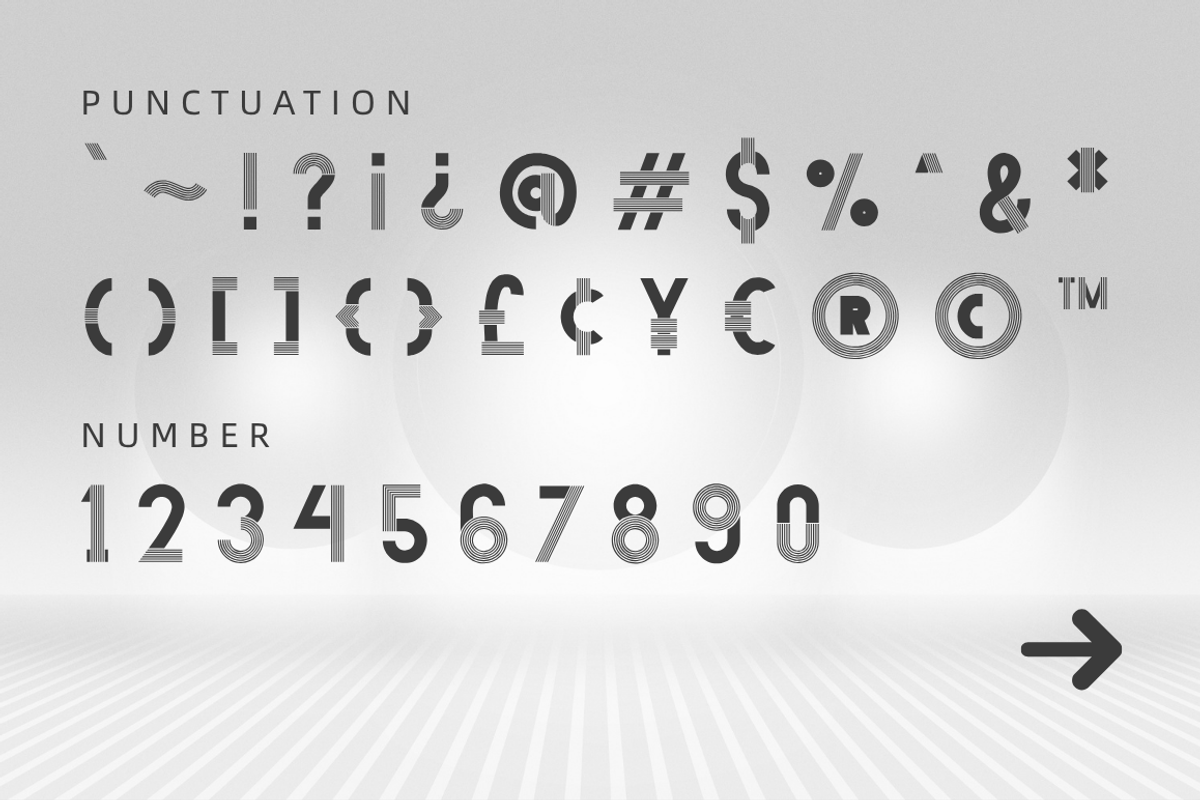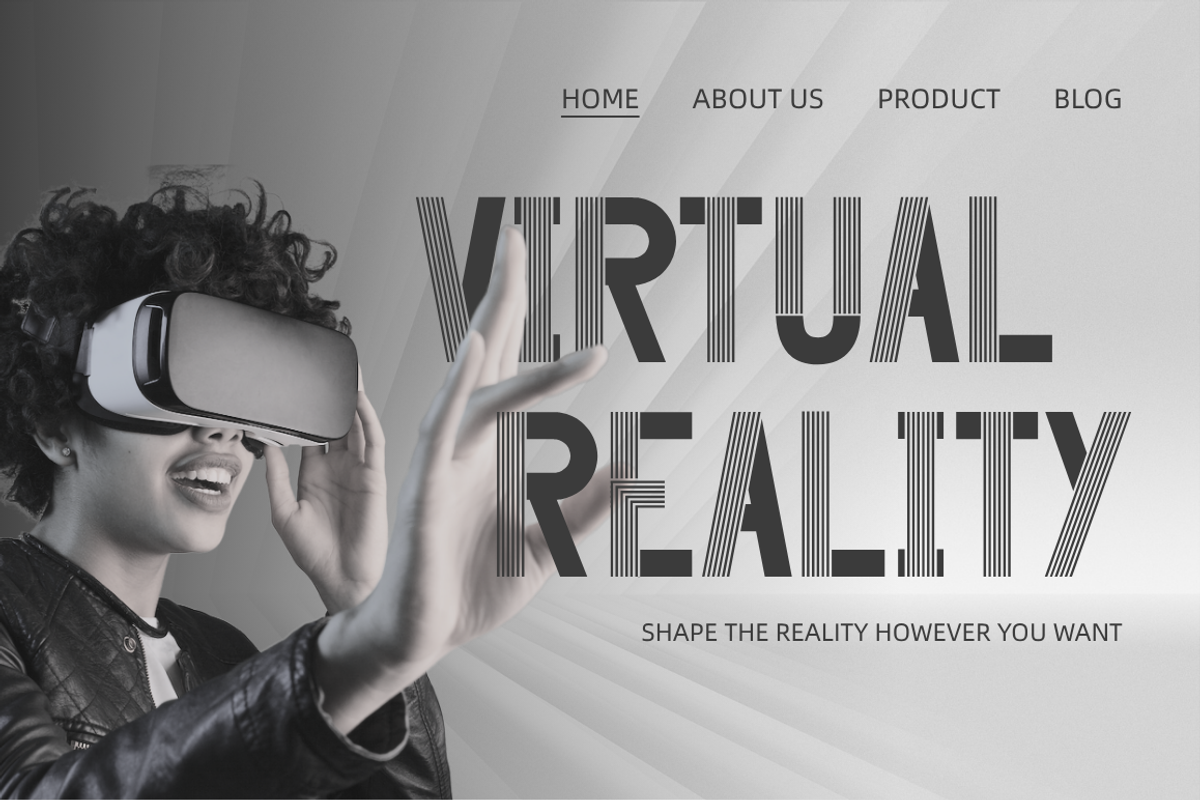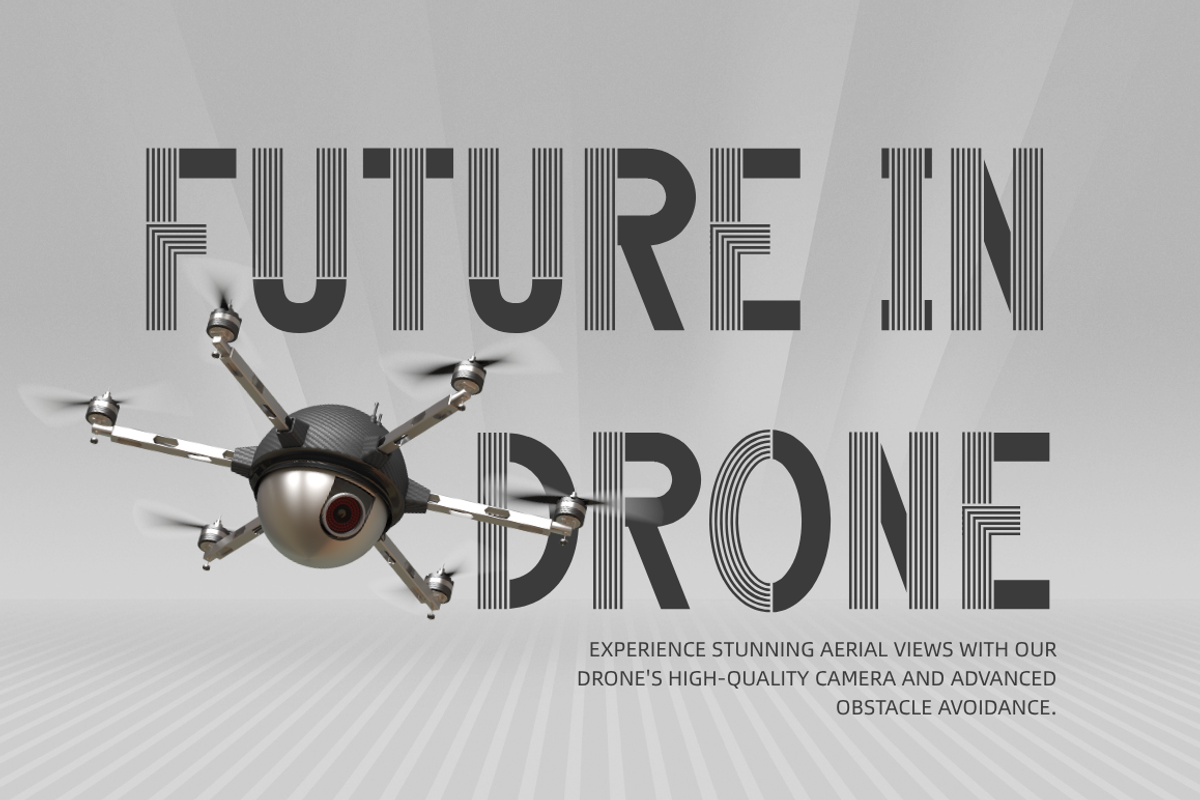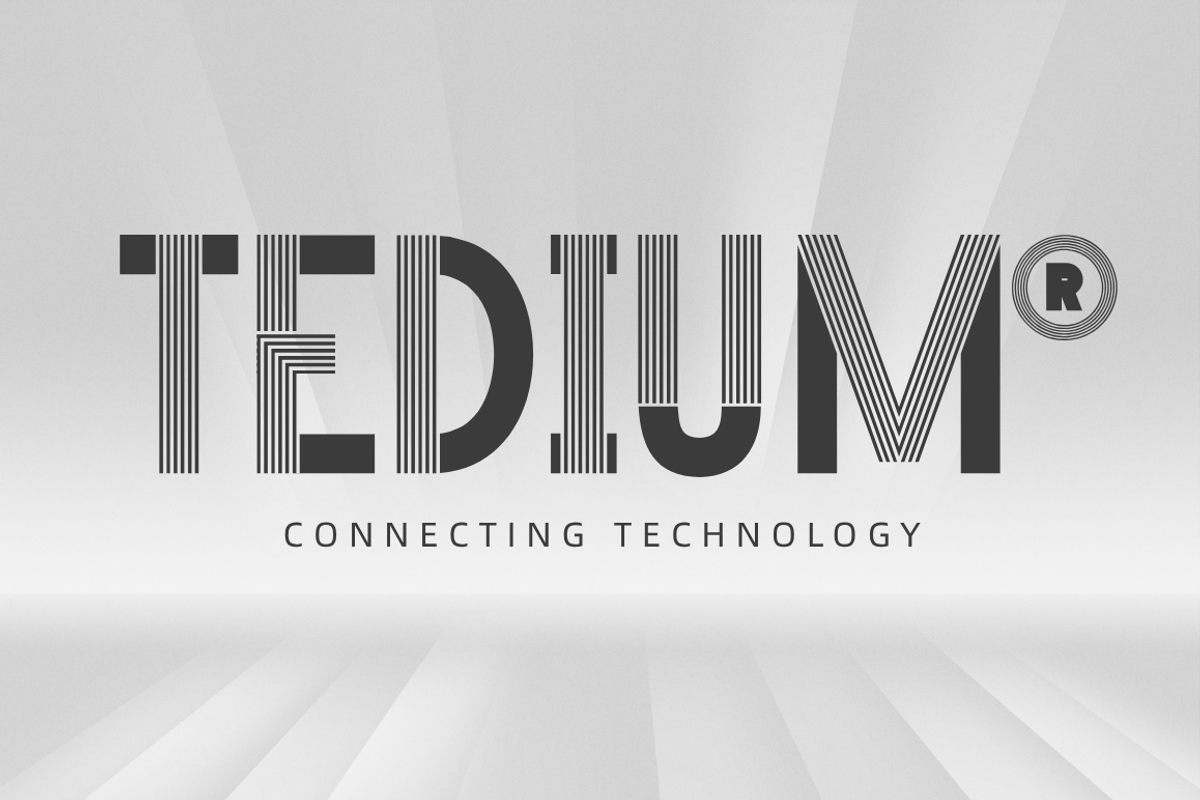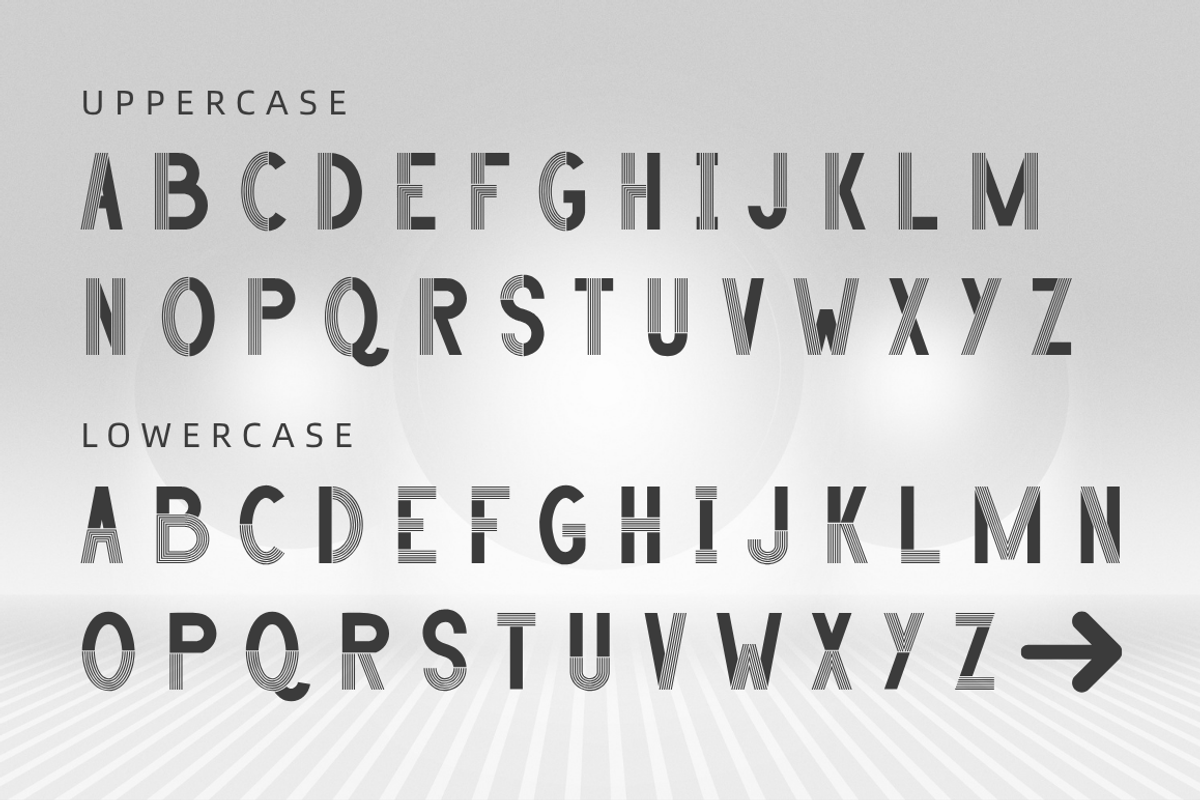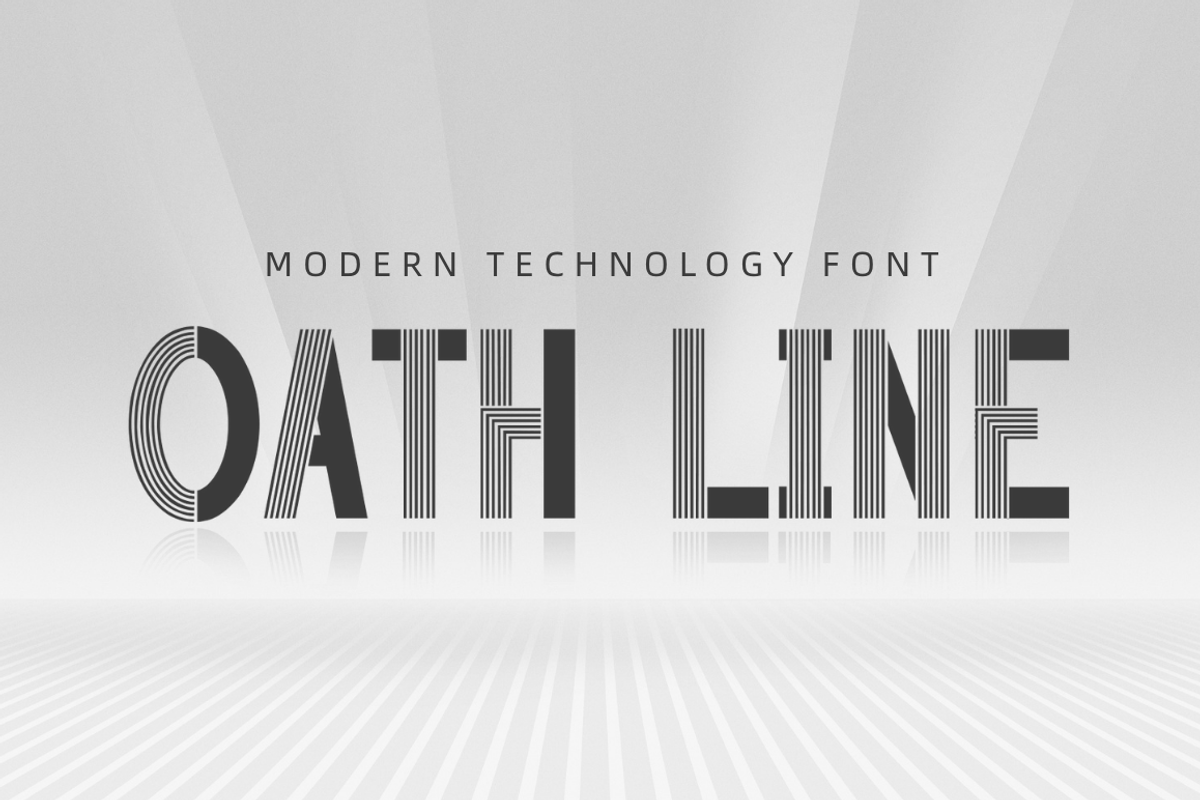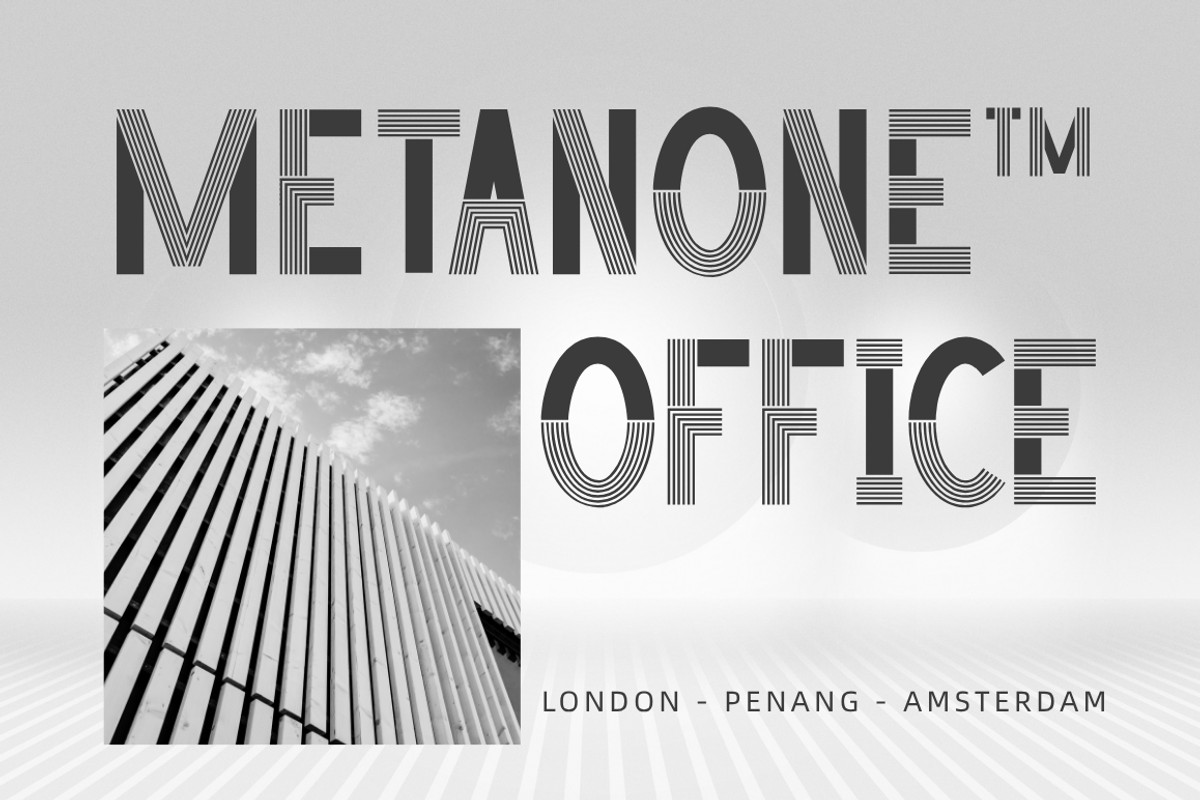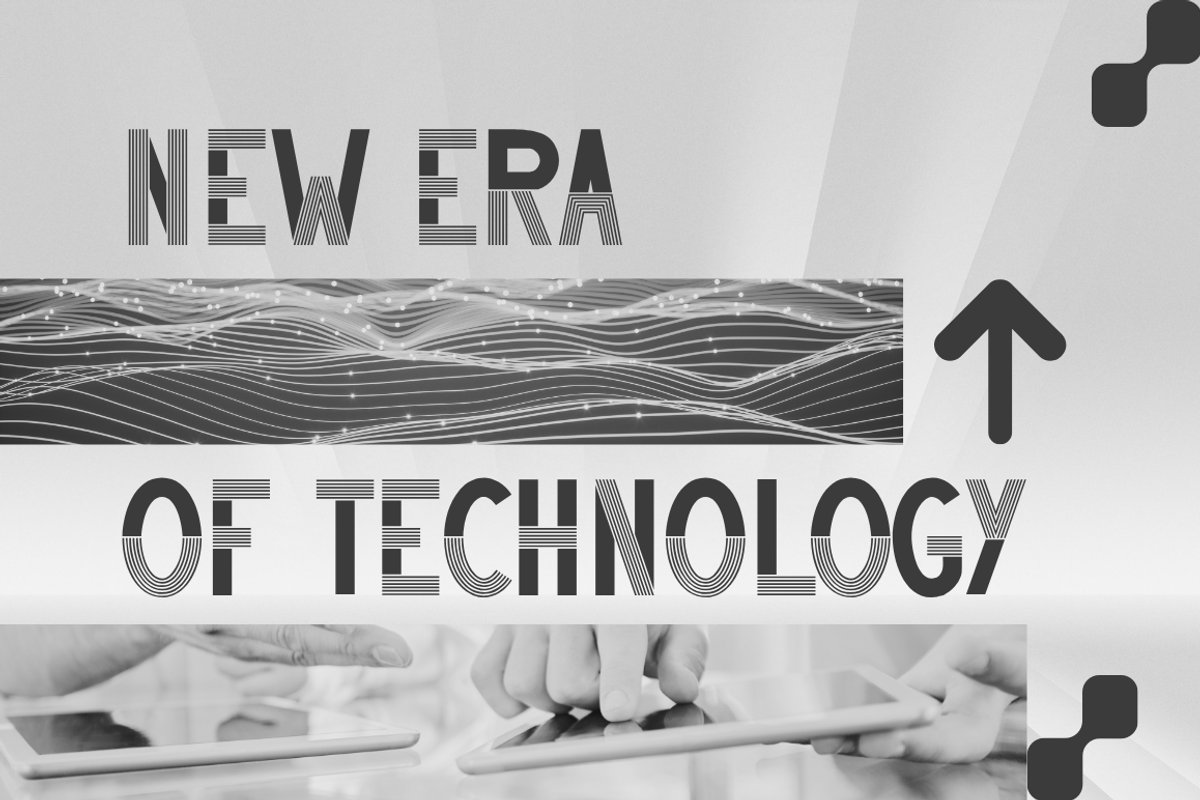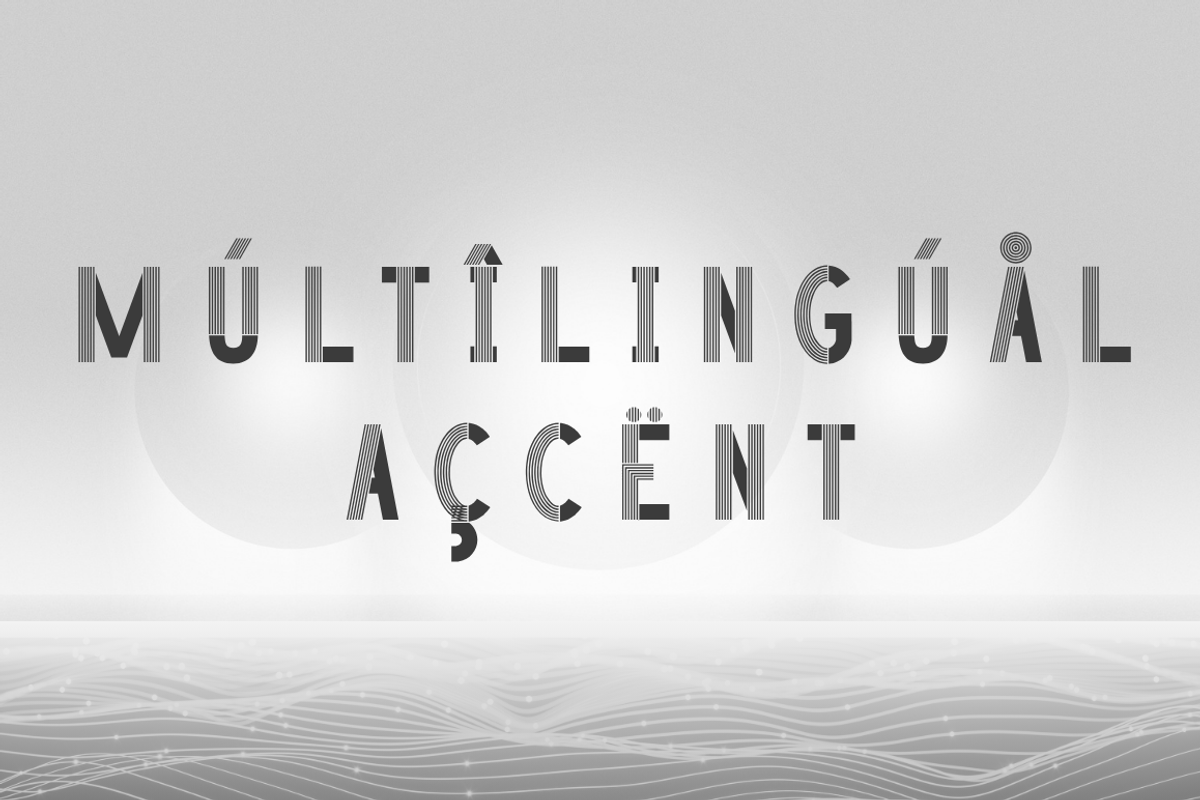
Oath Line – Modern Technology Font
Oath Line – Modern Technology Font is a futuristic display font designed to stand out with its dynamic combination of bold solid lines and sleek linear details. Perfectly crafted for high-impact designs, this font brings a modern tech aesthetic ideal for digital interfaces, innovation campaigns, and science-themed projects.
Oath Line delivers a bold, futuristic presence that communicates precision and progress. It includes full uppercase and lowercase characters, making it versatile for various creative needs.
Perfect for: Tech startup branding, Futuristic posters and headlines, Drone or AI product packaging, UI/UX design mockup, Digital agency presentations, Modern architectural visuals, Sci-fi or innovation-themed marketing.